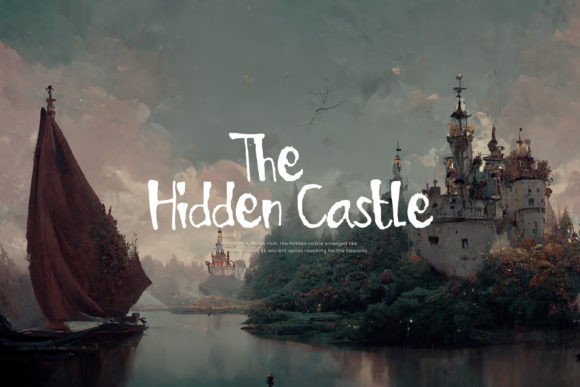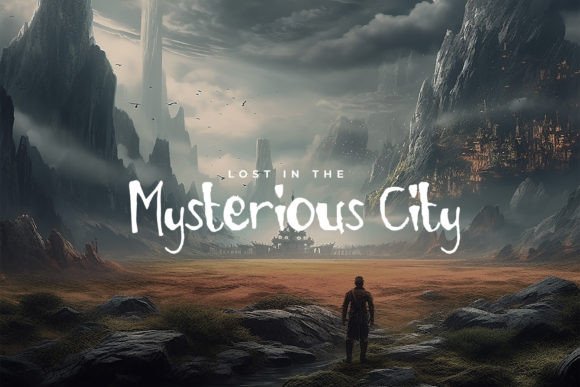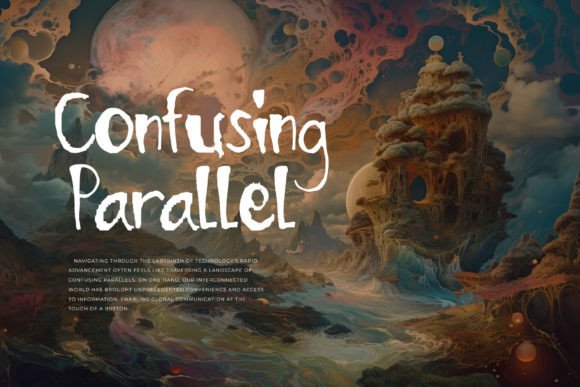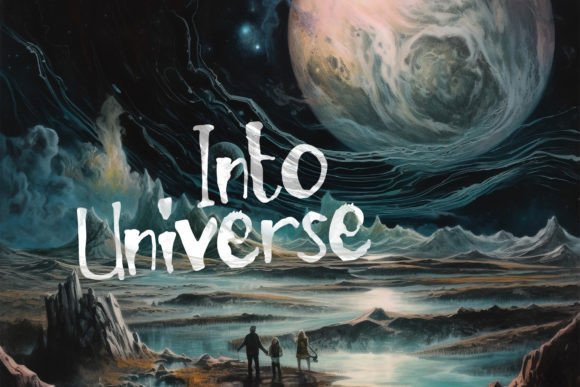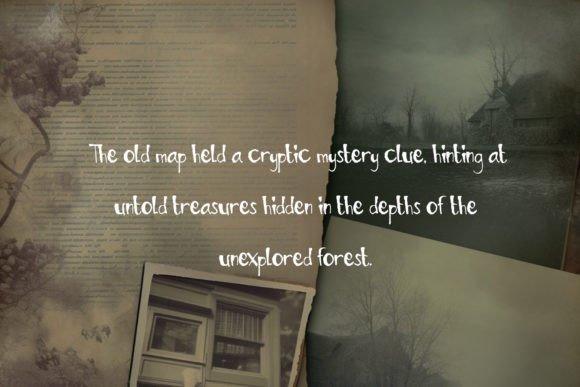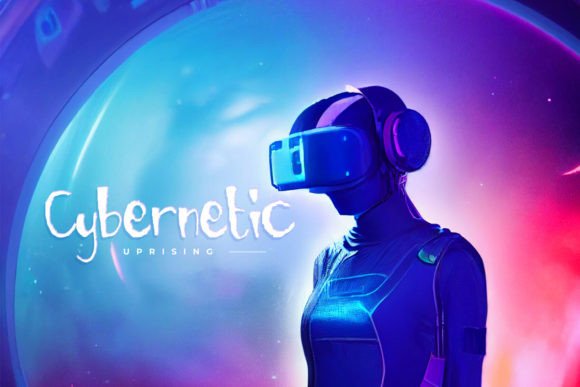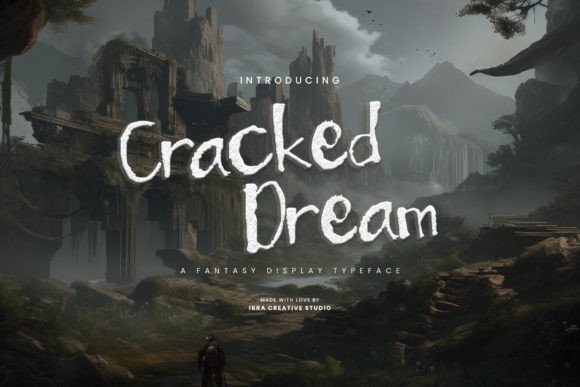
Cracked Dream Font: Unlock the Secrets of a Mystical Fantasy World
Imagine stepping into a realm where reality blends with the fantastical, where ancient spells and hidden secrets come alive. With the Cracked Dream font, you can transport yourself and your audience to a world of otherworldly wonder. This enchanting and imaginative fantasy display typeface is designed to evoke the feeling of mystique and allure, perfect for designers and crafters looking to add a touch of magic to their projects.
The Magic of Cracked Dream
Cracked Dream is more than just a font – it’s an experience. Its intricate and mystic letterforms are adorned with ornate cracks and intricate details, conjuring images of ancient spells and hidden secrets. Each letter is carefully crafted to weave a sense of enigma and adventure, making it a perfect choice for fantasy book covers, magical-themed designs, and mystical event posters.
Perfect for Fantasy and Magical Designs
Whether you’re a designer looking to create a captivating fantasy book cover or a crafter seeking to add a touch of magic to your handmade cards, Cracked Dream is the perfect choice. This font effortlessly transports your audience to a world of wonder and awe, inviting them to explore the depths of their imagination. With Cracked Dream, you can:
- Create enchanting fantasy book covers that capture the essence of your story
- Design magical-themed posters and flyers that transport your audience to a world of wonder
- Add a touch of mystique to your handmade cards and invitations
- Develop captivating gaming graphics that draw players into a world of fantasy
Unique Design and Versatility
Cracked Dream’s unique design is both captivating and versatile. The font’s intricate details and ornate cracks can be used in a variety of design projects, from elegant and sophisticated to bold and dramatic. Whether you’re looking to create a sense of mystery and intrigue or simply want to add a touch of whimsy to your designs, Cracked Dream is the perfect choice.
Tips for Using Cracked Dream
To get the most out of Cracked Dream, here are a few tips to keep in mind:
- Use Cracked Dream as a display font to add a touch of drama and elegance to your designs
- Experiment with different colors and textures to enhance the font’s mystical and enchanting qualities
- Pair Cracked Dream with simpler fonts to create a striking contrast and add visual interest
- Don’t be afraid to get creative and experiment with different design elements, such as illustrations and graphics, to enhance the font’s magical qualities
Unlock the Secrets of Cracked Dream
Cracked Dream is more than just a font – it’s a key to unlocking a world of fantasy and wonder. With its intricate and mystic letterforms, ornate cracks, and intricate details, this enchanting font is sure to transport your audience to a realm of magic and awe. Whether you’re a designer, crafter, or simply someone who loves fantasy and adventure, Cracked Dream is the perfect choice for anyone looking to add a touch of mystique and allure to their designs.